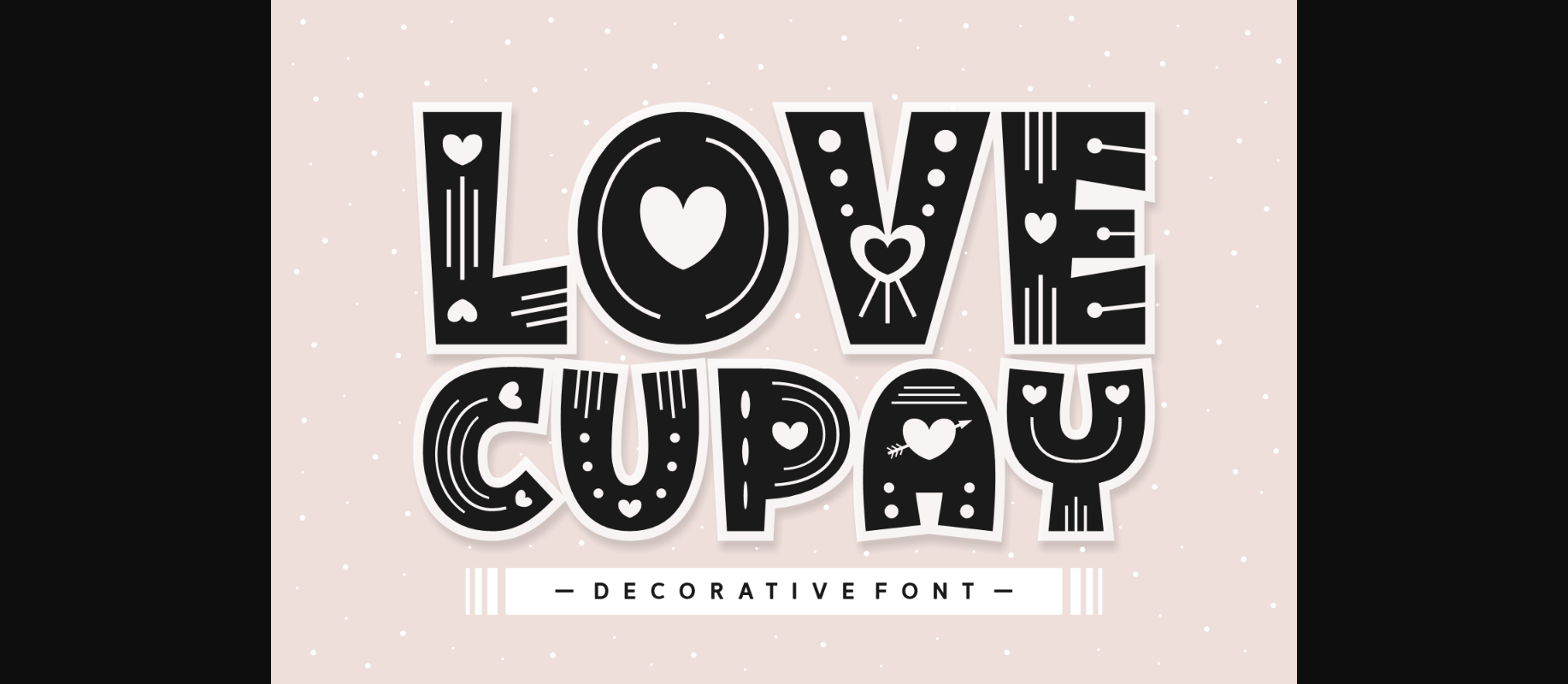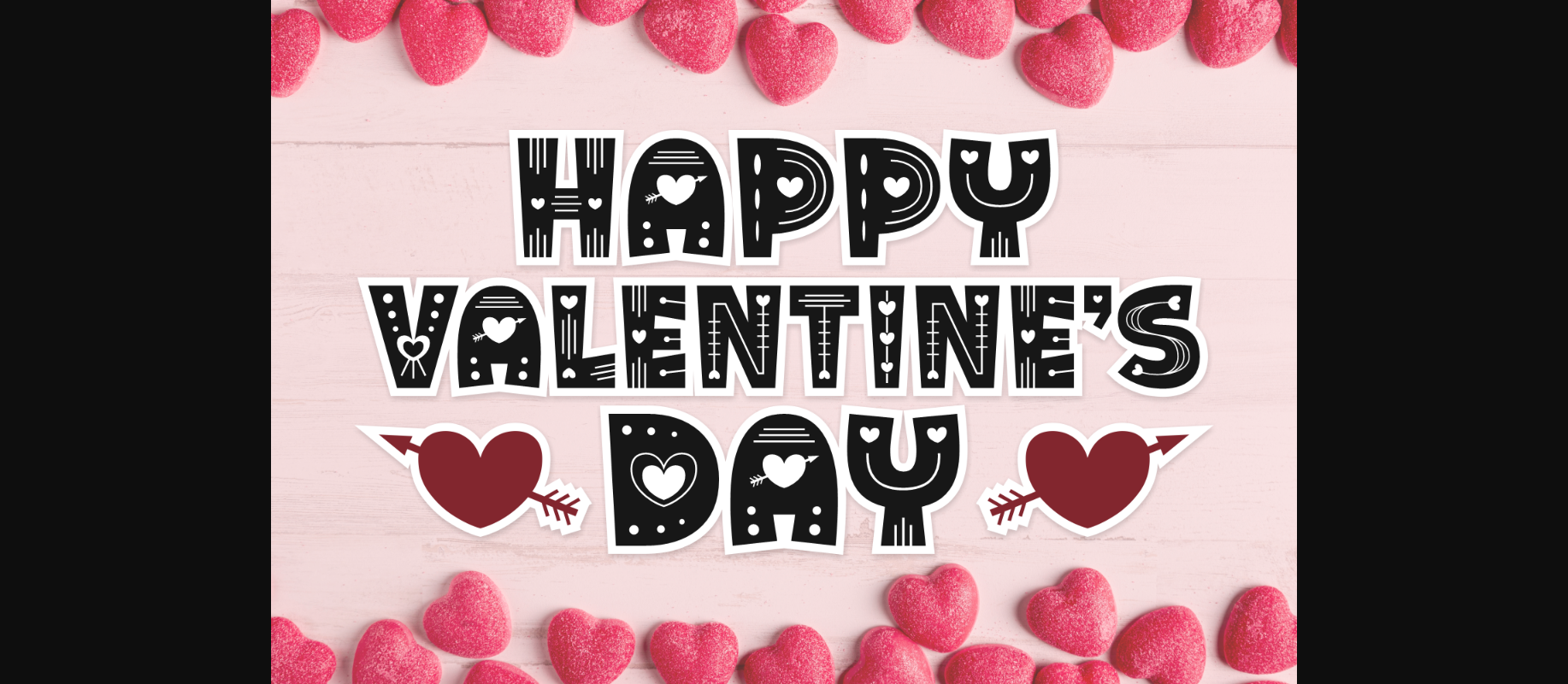
About Love Cupay Font
Love Cupay is a delightful decorative typeface that radiates warmth and charm. With its whimsical curves and playful flourishes, it captures the essence of romance and joy. Perfect for invitations, greeting cards, and creative projects, Love Cupay adds a touch of sweetness and elegance to any design endeavor.